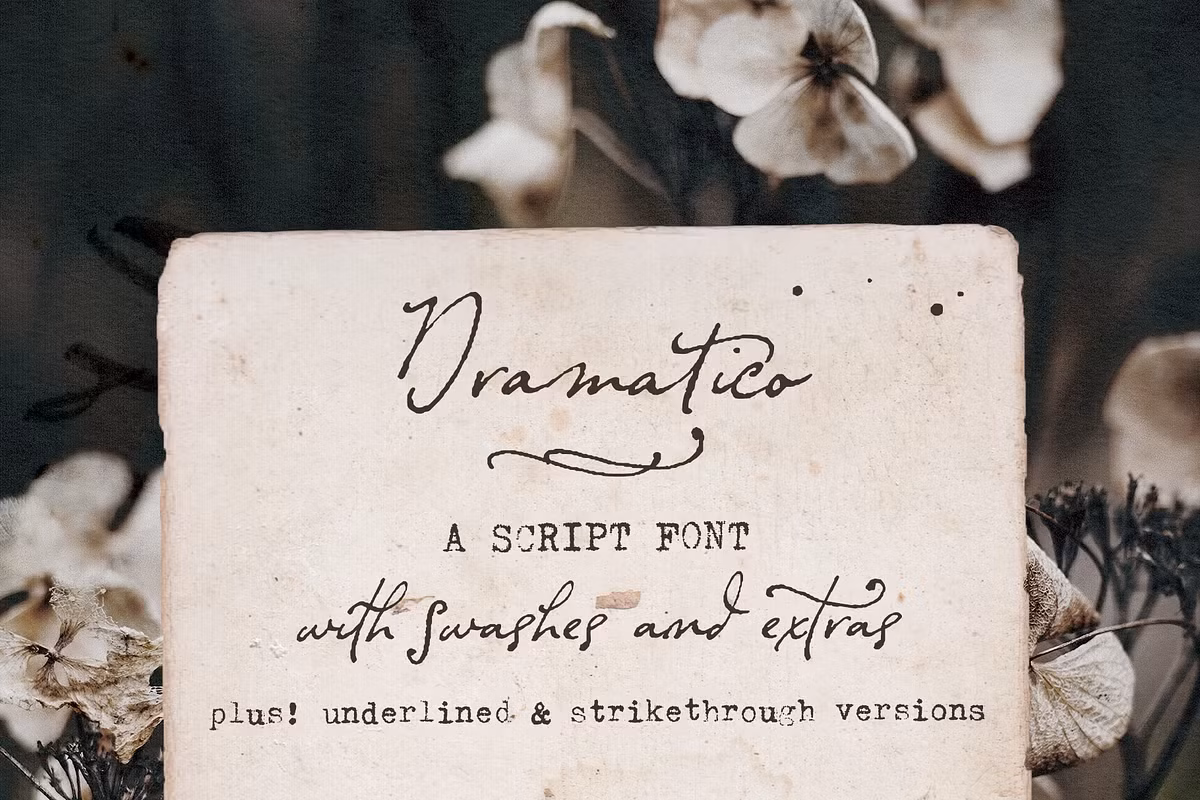
Dramatico Script Font Free Download is a bold, theatrical handwritten typeface with sweeping curves and dramatic flair—perfect for eye-catching branding, elegant invitations, editorial titles, and statement-making quotes. It’s designed to turn simple text into a show-stopping element.
With its expressive strokes and vintage-inspired style, Dramatico Script Font Free Download brings emotion and artistry to any design. Whether you're crafting a luxury logo, designing wedding materials, or creating social media graphics that need flair, this font delivers personality in every line. Try it out in your next mockup and experience its timeless charm—then upgrade to a commercial license when you're ready to take your visuals to the next level.